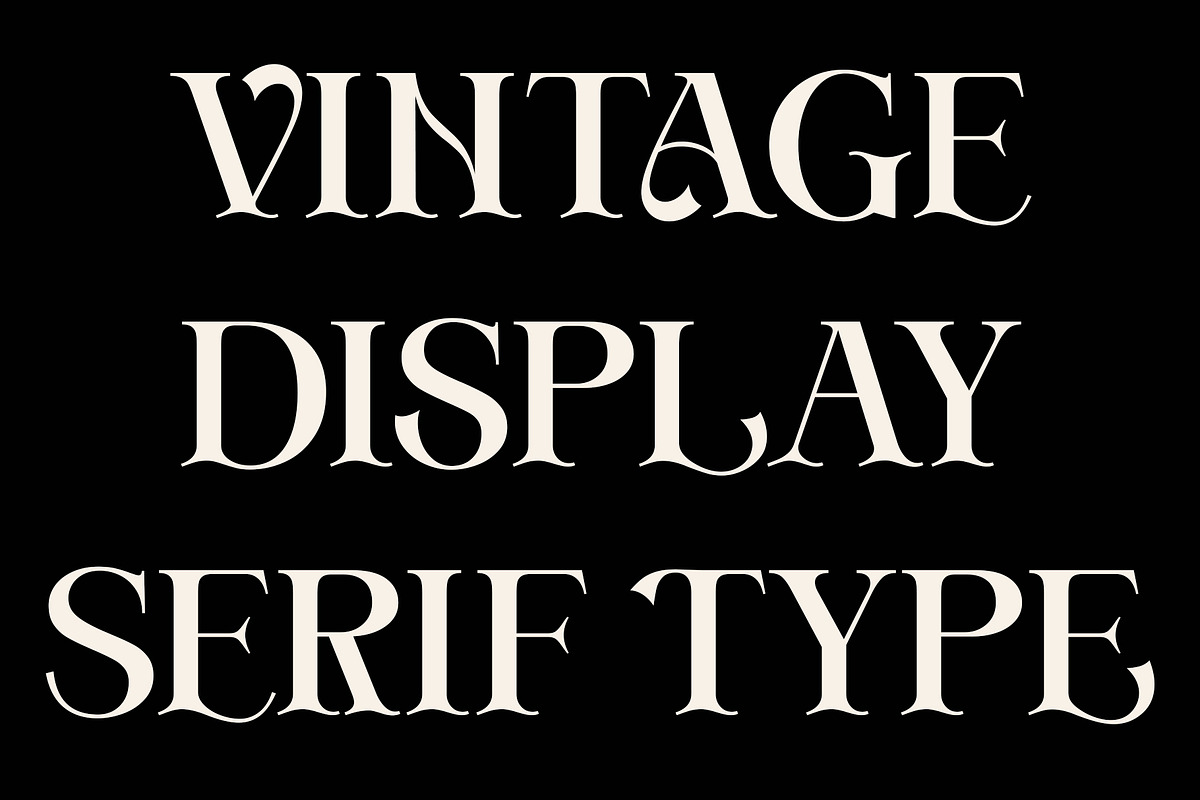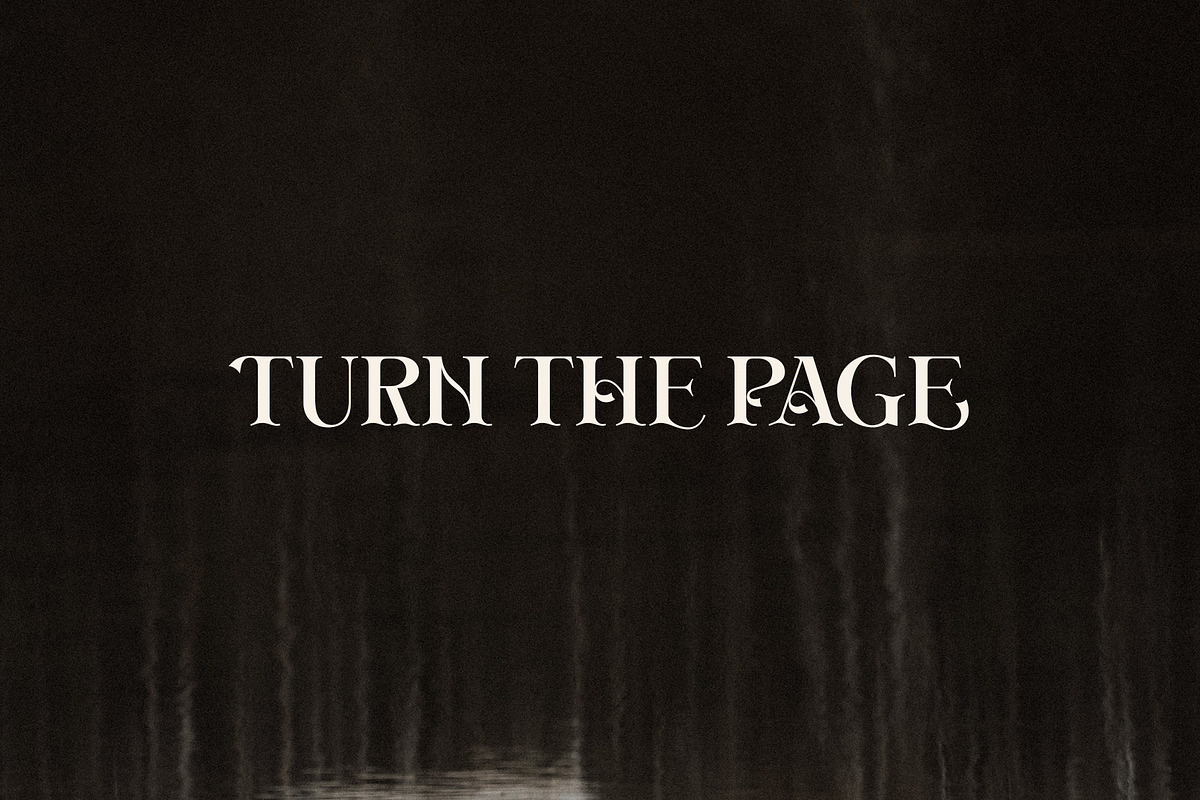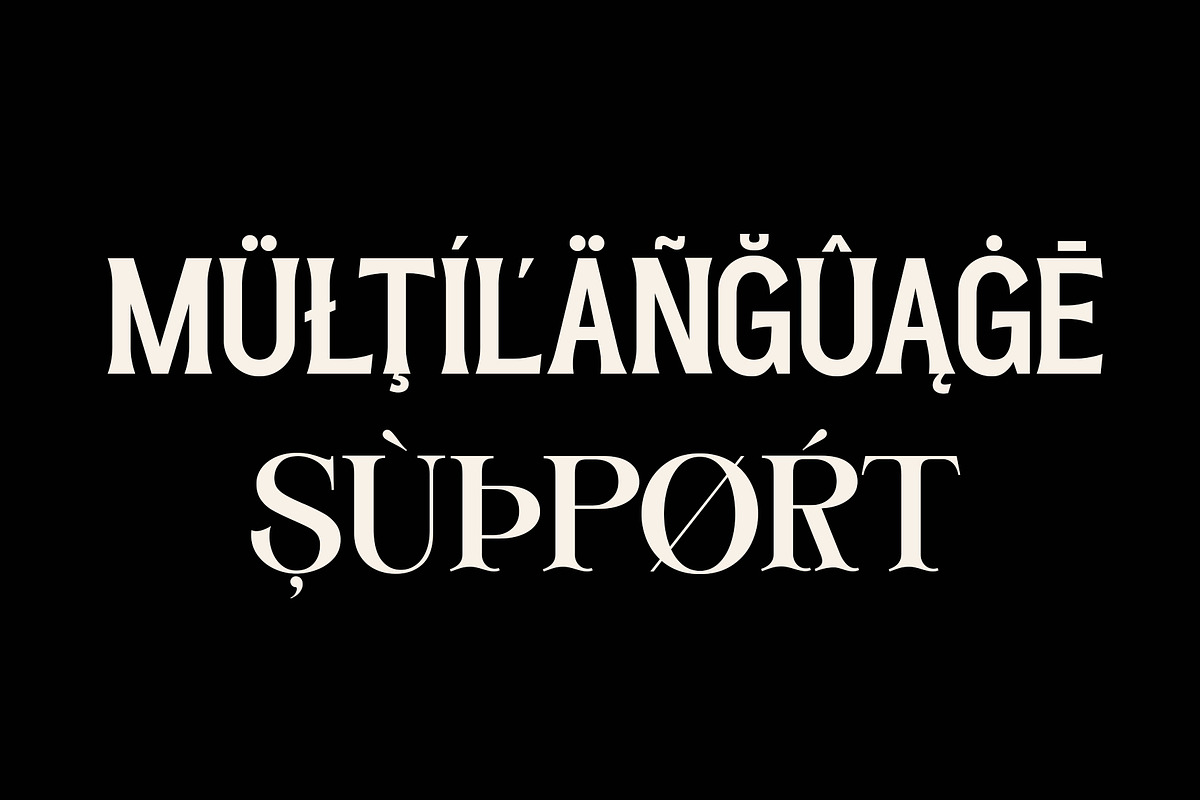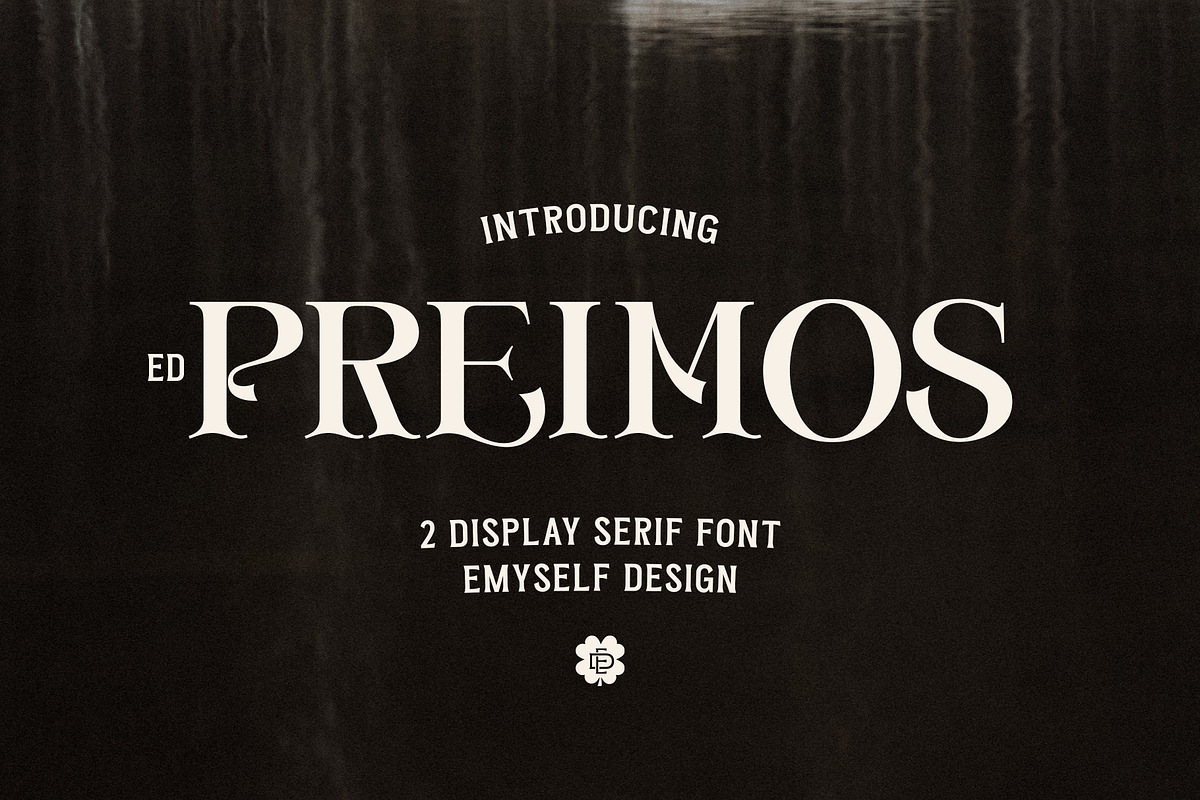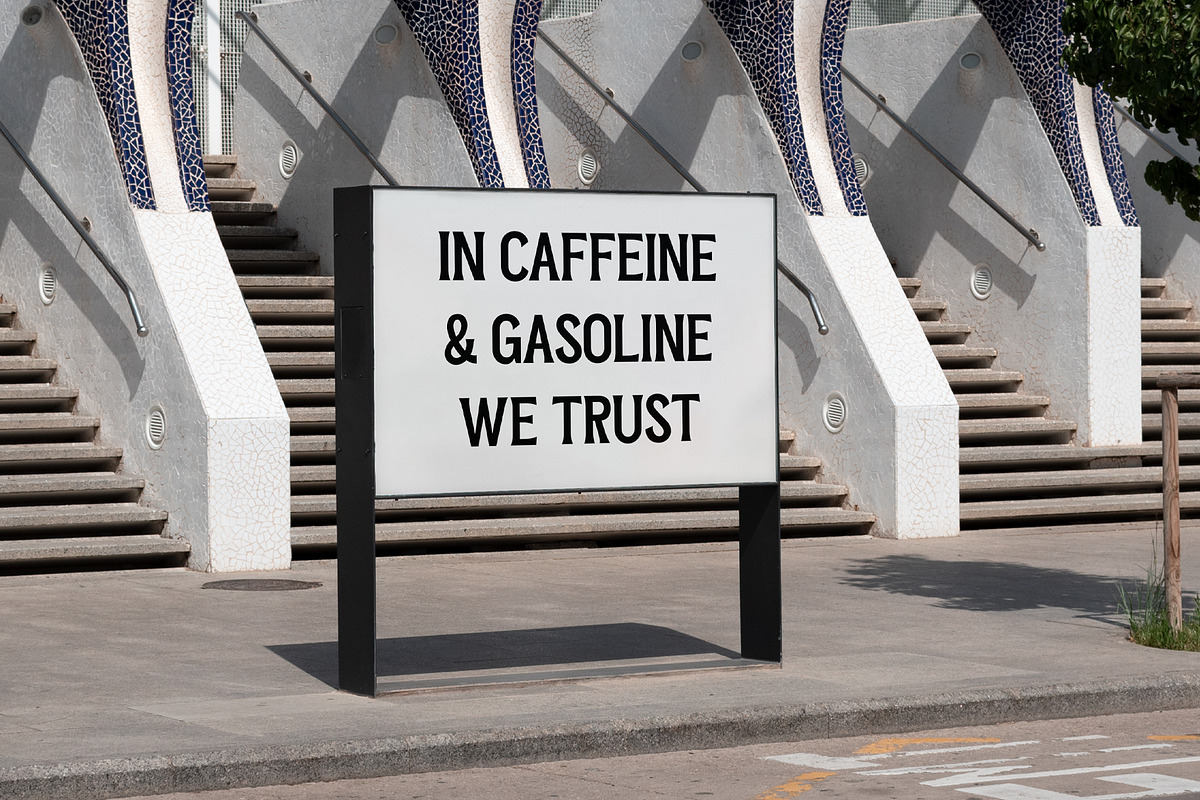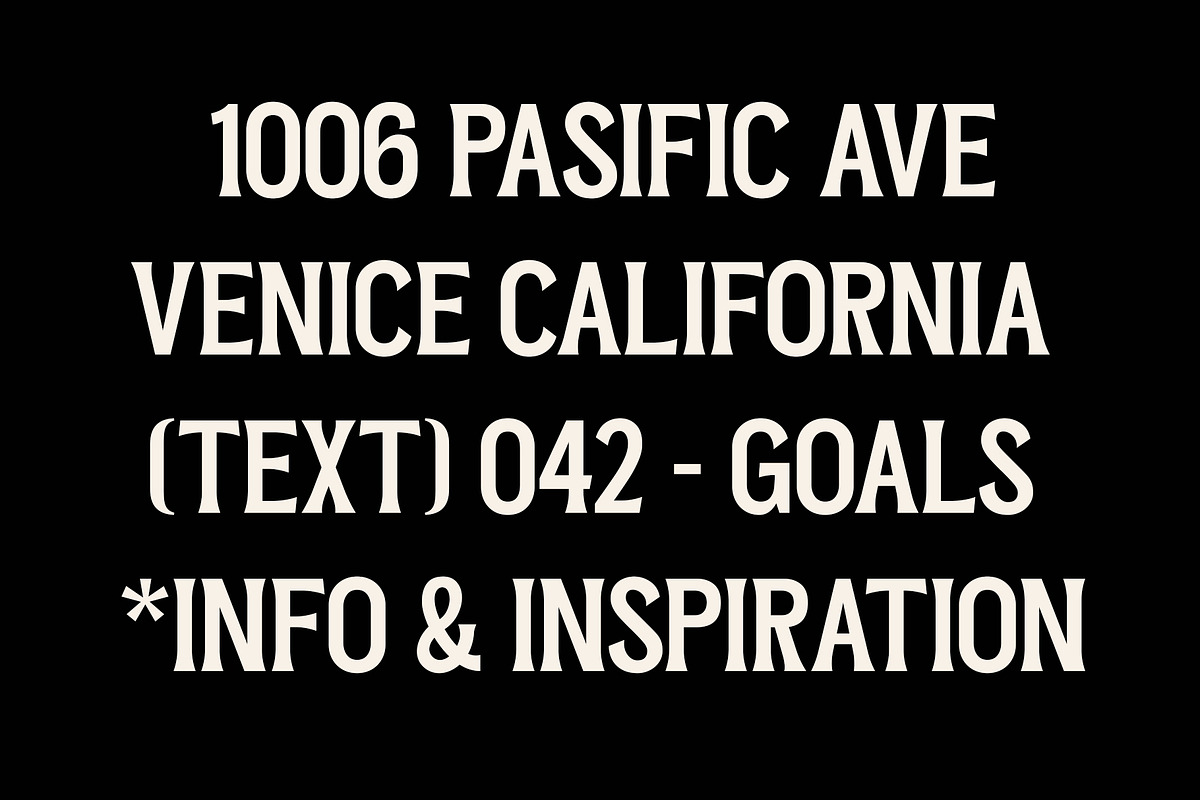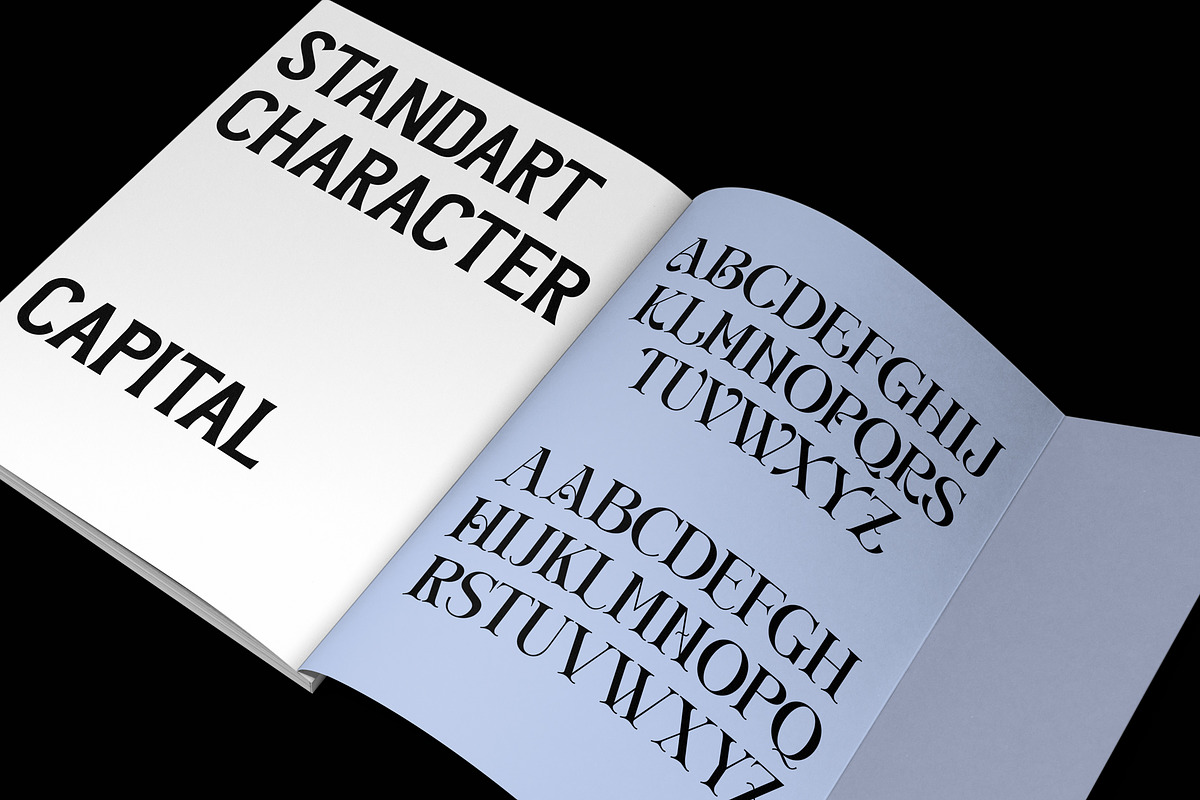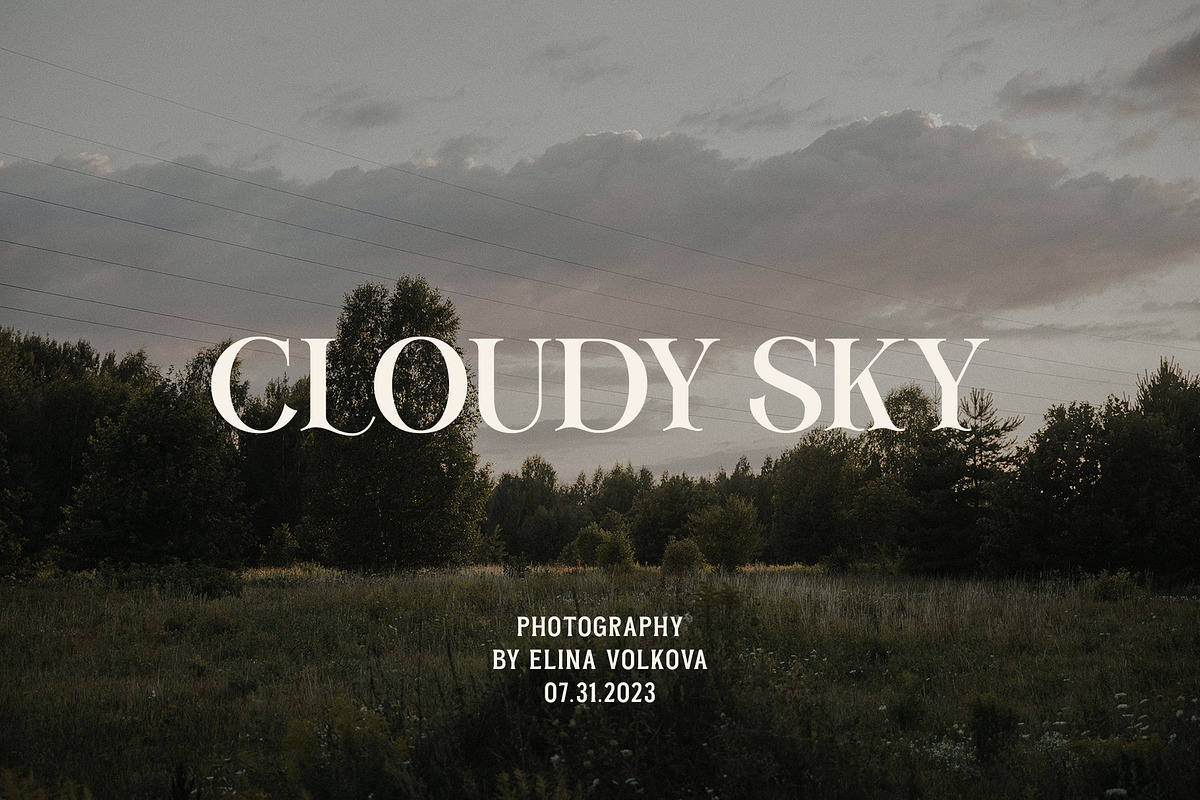
ED Preimos
Preimos is a combination of 2 vintage style serif fonts with different looks. The first font has a unique style for the main typography design and the second font can be used for supporting / text. This font design is inspired by the writing used on labels from the late 19th century.
This font is perfect for your creative projects such as Logotype, printed quotes, invitations, cards, product packaging, headers, Letterhead, Apparel , Web design, Magazine, Book, etc.